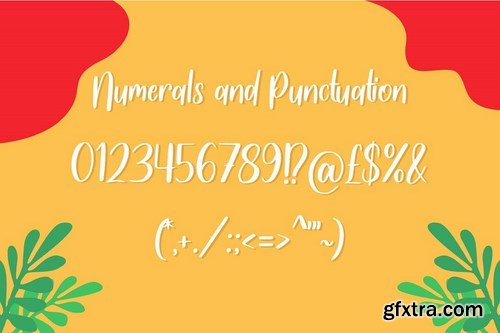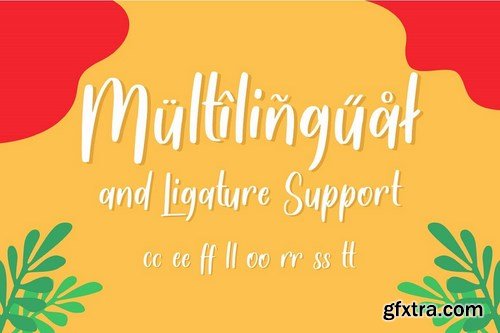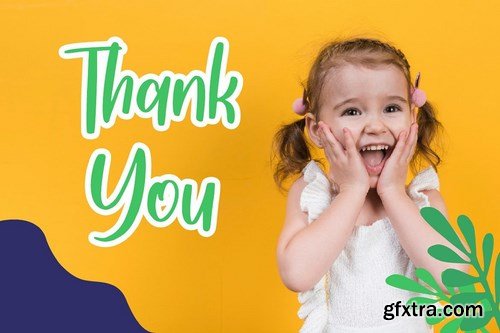
You, me, sea, and Tropicola Handwritten font! This font is handcrafted with tropical palm trees and sunny vibes! Use this font on different projects, promotions, websites, banners, and even printed materials!